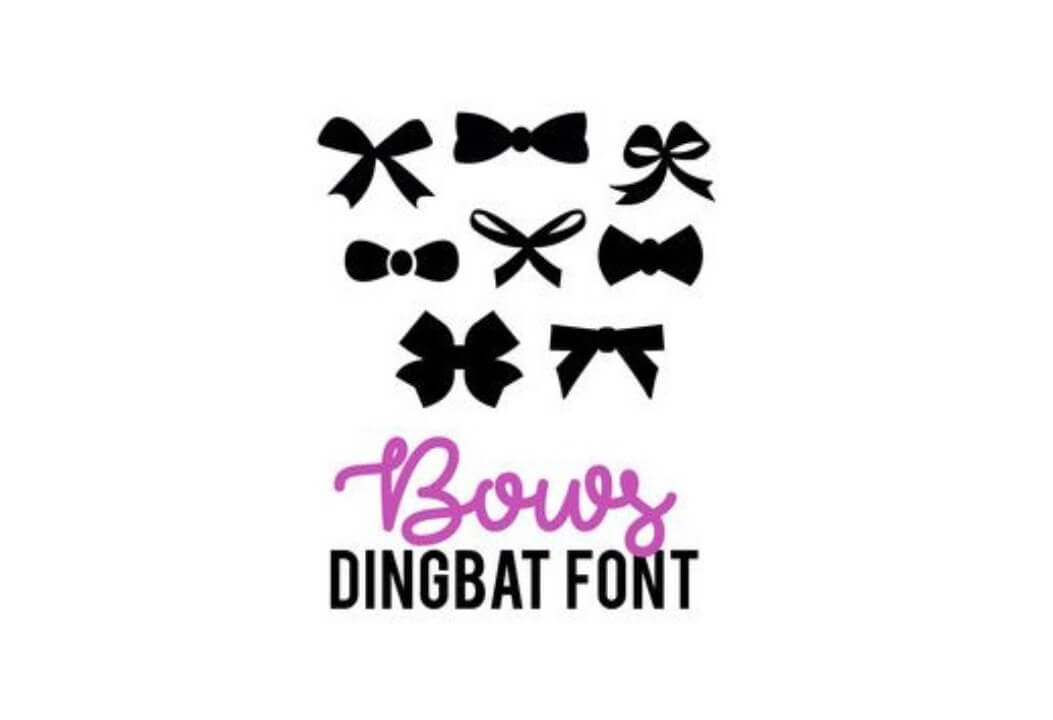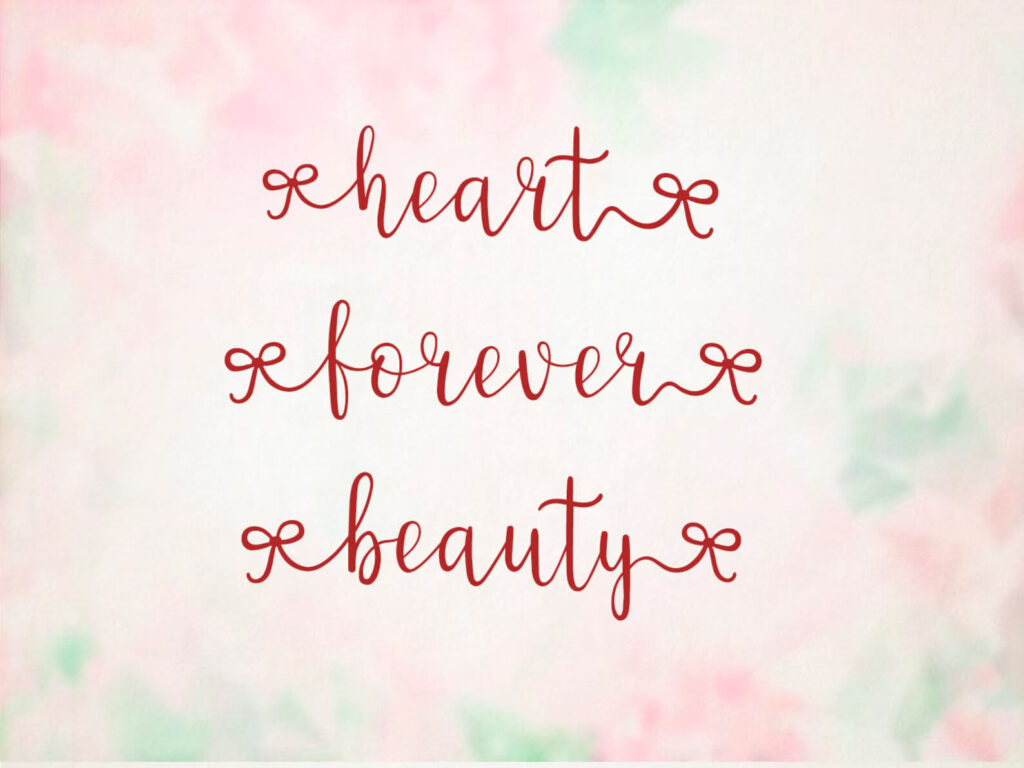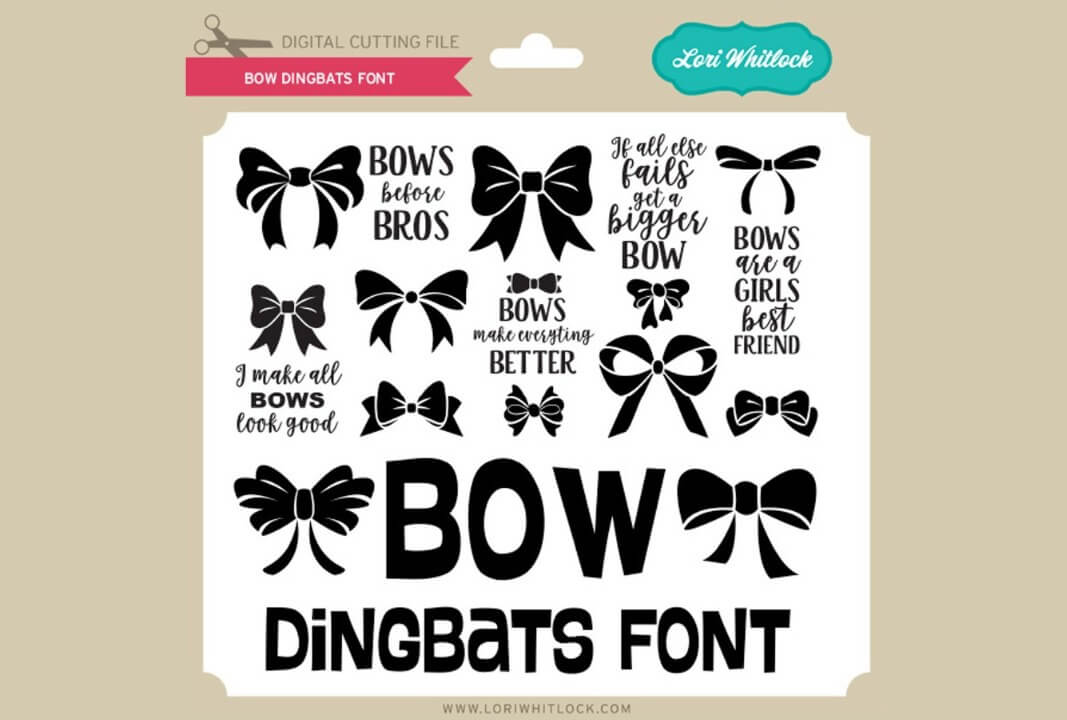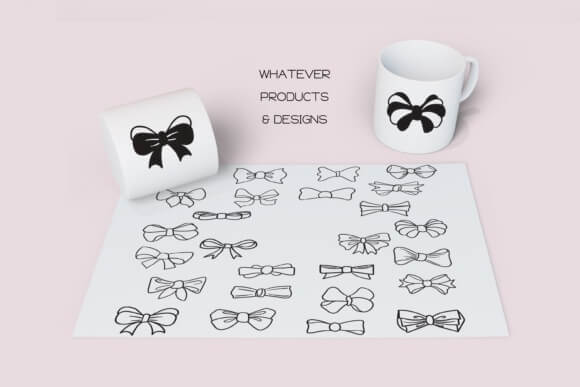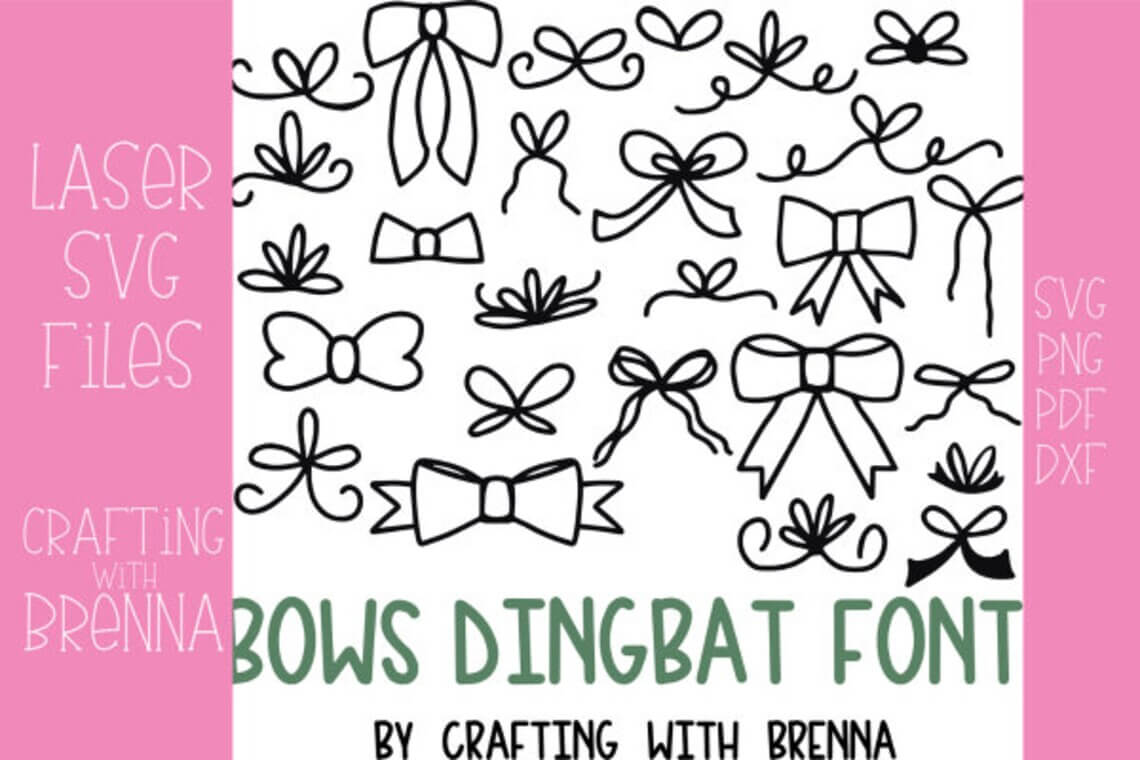
9 The Cutest Bow emojis and fonts with Bows
If you’ve ever found yourself lost in a sea of coquette-inspired Pinterest boards or romantic Instagram bios, chances are you’ve already encountered the charm of the bow font and bow emojis trend.
Whether you’re a fan of soft girl aesthetics, coquette moodboards, or you’re simply looking to dress up your text art with a little flair, this article will help you bring your inner ✧ aesthetic ✧ dreams to life.
In this guide, you’ll discover the prettiest fonts with bows, the most viral bow emoji combos, and how to use them in bios, usernames, digital designs, and even social captions.
We’ll also break down the symbols behind these dreamy looks like 𖧧, ୨୧, and the now iconic 𐙚.
So if you’ve been wondering what font gives coquette, or how people create those adorable 🐇 / ⋆ ۪ ⋆ style bios, keep reading.
Where Can You Find Fonts with Bows?
1. Curly Ribbon Wedding Font By AnnArtline
A floral arrangement features a decorative card with "Curly Ribbon" handwritten script, surrounded by elegant roses and white flowers on a wooden surface.
Curly Ribbon feels like writing with a satin bow. It’s playful, elegant, and perfect for weddings, love notes, or anything that needs a romantic, handmade touch. Think dreamy invites, boutique logos, or pretty packaging with personality and charm.
2. Bows Dingbat Font
Nine black bow illustrations above text reading "Bows Dingbat Font" in black and purple on a white background.
This Bows Dingbat Font is basically a shortcut to cute. Instead of letters, you get a whole set of bow illustrations you can type with. It’s perfect for adding playful accents to packaging, planners, logos, or anything that needs a little charm.
3. Cursive Handwritten Font with Bows by KJFonts
Elegant red calligraphy spells "heart," "forever," and "beauty" on a soft pink and green floral background, conveying a romantic and timeless theme.
This font is like handwriting in a pink notebook tied with a ribbon. Each letter has tiny bows built right in, giving your text a sweet, flirty vibe. Perfect for love notes, girly logos, or any project that needs soft charm.
4. Bow Font by Natchuta
A white onesie with a blue bow design is surrounded by colorful, pastel-colored eggs on a light wooden surface.
This bow dingbat font is like a little party from A to O. Each letter gives you a different cute bow doodle, perfect for adding charm to birthday invites, holiday crafts, baby onesies, or anything that needs a sweet playful touch.
5. Bow Dingbats Font by Lori Whitlock
Various bow illustrations and phrases, such as "Bows before bros," feature in this digital cutting file for crafting projects.
This Bow Dingbats Font is full of cute bow icons you can type out like letters and use instantly in Cricut, Silhouette, or any design software. Just install it like a regular font and start creating sweet, girly projects in minutes.
6. The Bows by Wadlen
A collection of bow illustrations displayed on paper, cup, and tape packaging against a pink background. Text reads "WHATEVER PRODUCTS & DESIGNS."
The Bows is a super cute dingbat font packed with 52 hand-drawn bow doodles. Perfect for planners, mugs, stickers or anything you want to make extra sweet. Just type and go to add charm to all your creative projects.
7. Bows by Sontaya
A white T-shirt with a large black bow illustration, placed on a wooden surface beside black sunglasses and shoes.
Bows is a playful dingbat font filled with hand-drawn bow illustrations that instantly make anything cuter. Use it for gift tags, invites, planners, or fashion designs. Just type a letter and boom, you’ve got charm with zero extra effort.
8. Groovy Bow by Chonada
A person in a coat smiles while holding a tote bag featuring a black circle design with a bow against a dark background.
Groovy Bow is that font you use when you want your words to dress up. Every letter comes with a cute little bow, making your invites, posters, or designs feel playful and extra adorable without even trying.
9. Bows Dingbat Font by Crafting with Brenna
Image displays various bow designs in black. Pink sidebars read "Crafting with Brenna". Text promotes "Bows Dingbat Font" for SVG, PNG, PDF, DXF files.
This dingbat font by Crafting with Brenna is packed with fun and playful hand-drawn bows in all shapes and curls. Use it for crafts, gifts, or DIY designs and instantly add charm. You can go from blank to adorable with just a few clicks. Great for custom keychains, bags, cards or anything you dream up in your creative chaos.
What Is a Bow Font?
I still remember the first time I searched for a bow font. It was late at night, I had a client who wanted something “super soft and feminine” for her digital planner cover.
You know the kind. Think pink ribbons, lace edges, coquette energy everywhere.
I tried the usual script fonts, but they didn’t quite hit. They were elegant, sure, but not… playful. Not romantic.
Not the kind of typeface that felt like it was tied together with an actual satin bow. That’s when I realized: what I needed was a font that didn’t just say “pretty”, it needed to look like it was pulled straight out of a vintage jewelry box or a handmade Valentine card.
That’s what a bow font really is. It’s a decorative typeface with bow-like embellishments, sometimes little loops and ribbons built right into the letters.
It gives your text that whimsical, dreamy feel that makes people stop scrolling and go, “Omg where did you get that?”
Perfect for branding, social posts, or even just dressing up your username with some text art magic.
And if you’re layering in bow emojis and those charming little symbols like ୨୧ or 𖧧? That’s when the whole aesthetic truly comes to life.
Why Are Bow Emojis and Fonts Trending?
I didn’t expect a simple *bow emoji* to spark a full-blown design rabbit hole, but here we are.
A few months ago, I was helping my niece customize her TikTok profile. She’s 14 going on CEO, and she looked me dead in the eye and said,
“Can you make it look… coquette?”
I blinked.
“Coquette?”
She rolled her eyes (politely) and showed me a string of characters that looked like fairy dust:
`୨୧ 𖥔 ꗃ ⋆ ִ ࣪`
That was the moment it clicked.
We’re not just using *fonts* or *emojis* to decorate anymore—we’re using them to express identity.
Her tiny bio—with nothing but some *bow emojis*, curly Unicode characters, and a cute font—told me more about her than any full sentence could. It was soft, girly, hyperfeminine, a little mysterious. *Pure coquette*.
And she’s not alone. Everywhere I look—on TikTok, Pinterest, even X bios—*text art* is taking over. These symbols aren’t just decorations. They’re personality markers. They whisper what your vibe is, without saying it out loud.
It’s like digital handwriting meets aesthetic moodboard. And it’s absolutely a trend I’m here for.
How to Use Bow Emojis in Your Text Art
The first time I saw a bow emoji used in a bio, I genuinely thought someone had typed out an entire poem in code.
It was on Pinterest. I was scrolling (aka avoiding real work), and I landed on this dreamy board titled “Soft Girl Mood ☁️.” The profile bio read:
𖧧 ִ ࣪ ⋆ ٫٫ 𝐘ᱹ 🥛᪶ ࣪
No words. Just… aesthetic.
I had no clue what it meant, but I felt it. And I immediately thought, “Okay. I need to figure out how to do this.”
Fast-forward 3 hours, I had a note on my phone filled with text art, bow emojis, and mysterious little characters like ୨୧, 𖥔, and ⋆.
What I didn’t realize at first is that this wasn’t random. There’s an actual method to building these bios that feel like visual poetry.
You start with a soft symbol like ⋆ or 𖥔, layer in some rare characters like 𖧧 or ִ ࣪, and then balance it all out with cozy little touches—maybe a 🥛᪶ for that cottagecore vibe or 𝐘ᱹ for visual flair.
That’s the magic of text art. You’re not just typing. You’re styling your personality in symbols. Whether it’s for your TikTok captions, Instagram bios, Pinterest post titles, or even Discord usernames, using bow emojis and these delicate layouts adds that extra sparkle.
These are a few of my favorite combos you can totally steal:
• 𖧧 ִ ࣪ ⋆ ٫٫
• ִ ࣪ ⋆ ٫٫ 𝐘ᱹ
• ࣪ ⋆ ٫٫ 𝐘ᱹ 🥛᪶
• ⋆ ٫٫ 𝐘ᱹ 🥛᪶ ࣪
Honestly? It feels like tying a ribbon around your text. 🎀
Top Emoji Combos with Bows and Symbols
Looking to copy-paste some of the best emoji combos? These are perfect for bios, headers, or even digital products like journals or wallpapers.
Here are a few curated favorites:
.𖥔 ݁ ˖ ⋅˚₊‧ ୨୧
♡ ๋࣭ ⭑ ★ ౨ৎ
ׂ 𓈒 🐇 / ⋆
𓈒 🐇 / ⋆ ۪
/ ⋆ ۪ ⋆ ˚。⋆୨♡୧⋆
⋆ ˚。⋆୨ ʚɞ ୧⋆ ˚。⋆
⠀ ౨ৎ ⠀ ୨ৎ ⠀
౨ৎ ⠀ ୨ৎ ⠀ 𝒢𑄺
𝒢𑄺 ⠀ 𝜗⍴ ⠀ 𝜗ৎ
𝜗⍴ ⠀ 𝜗ৎ ⠀ 𝜗𐑞
𝜗ৎ ⠀ 𝜗𐑞 ⠀ 𝜗𝜚
୨୧ ⠀ ྀི ⠀ 𐙚
๋࣭ ⭑ ★ ౨ৎ ⋆˙⟡♡
These combos are great for standing out without saying too much. It’s vibe over words.
Best Coquette Symbols for Usernames and Bios
Not all characters are equal when it comes to coquette bios. Some symbols carry major aesthetic energy. If you want that dreamy flair, consider integrating:
𓍯, 𓋭 – vintage-like elegance
୨୧, ౨ৎ – soft girl staples
𐙚, ꔫ, ᧔o᧓ – playful and rare
𝜗𝜚, 𝒢𑄺, 𝜗⍴ – beautiful text flair
Here’s how they combine beautifully:
၄၃ 𓍯 𓋭 ୨୧ ౨ৎ
𓍯 𓋭 ୨୧ ౨ৎ 𝜗𝜚
𓋭 ୨୧ ౨ৎ 𝜗𝜚 𐙚
୨୧ ౨ৎ 𝜗𝜚 𐙚 ྀི
౨ৎ 𝜗𝜚 𐙚 ྀི ᧔o᧓
𝜗𝜚 𐙚 ྀི ᧔o᧓ ꔫ
⋆ ˚。 ⋆୨୧˚
𐙚 ྀི ᧔o᧓ ꔫ ᖭི༏ᖫྀ
Want to stand out? Use these at the beginning or end of your display name to create a signature look.